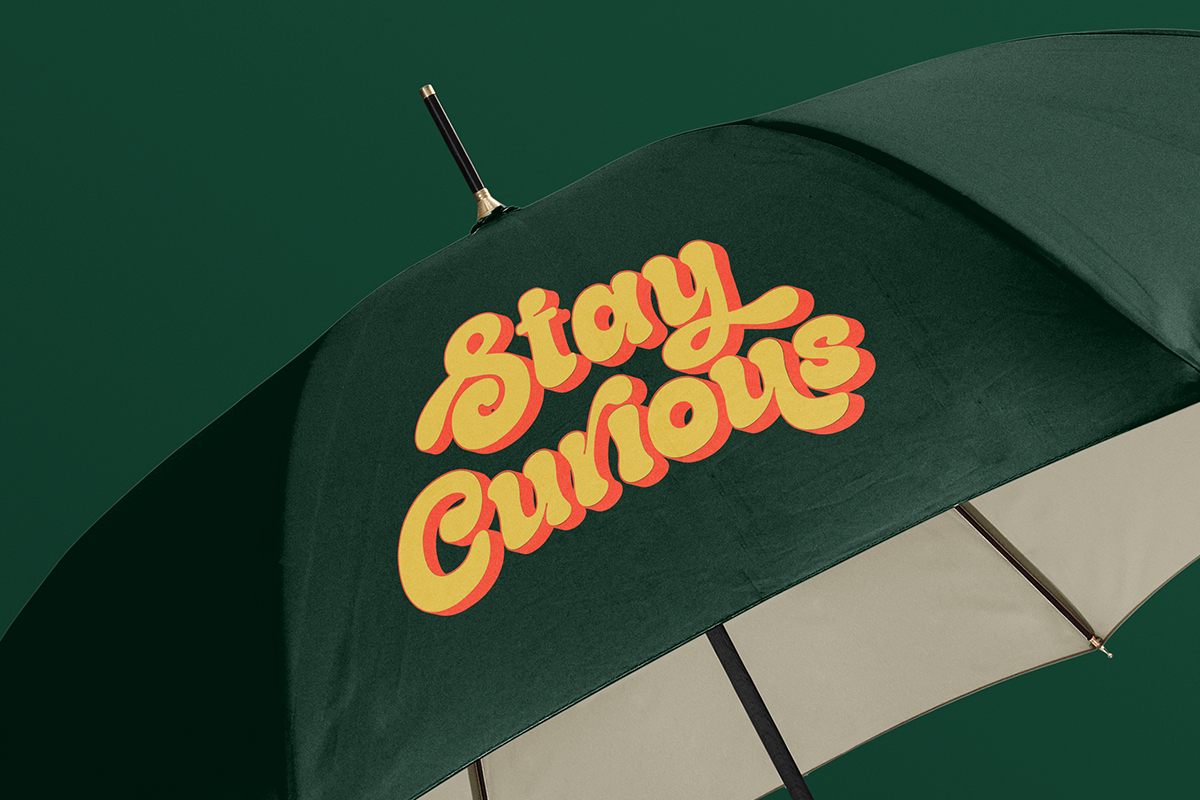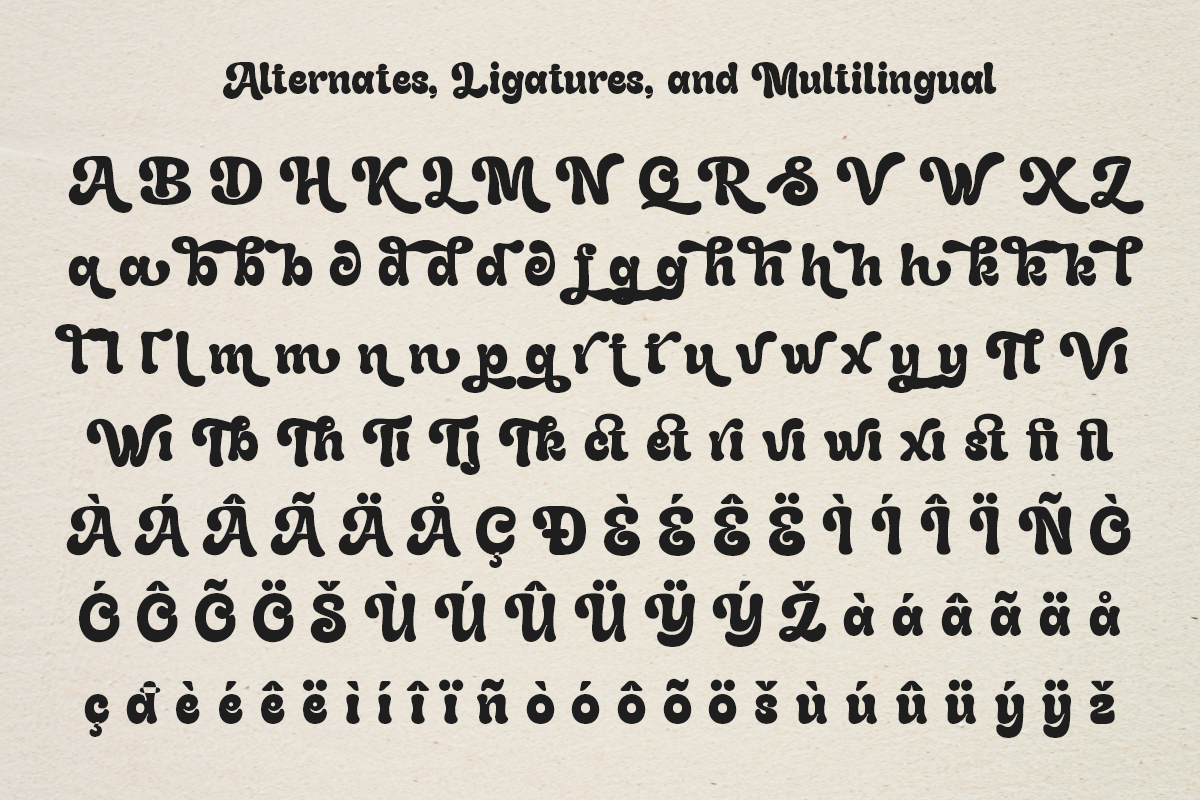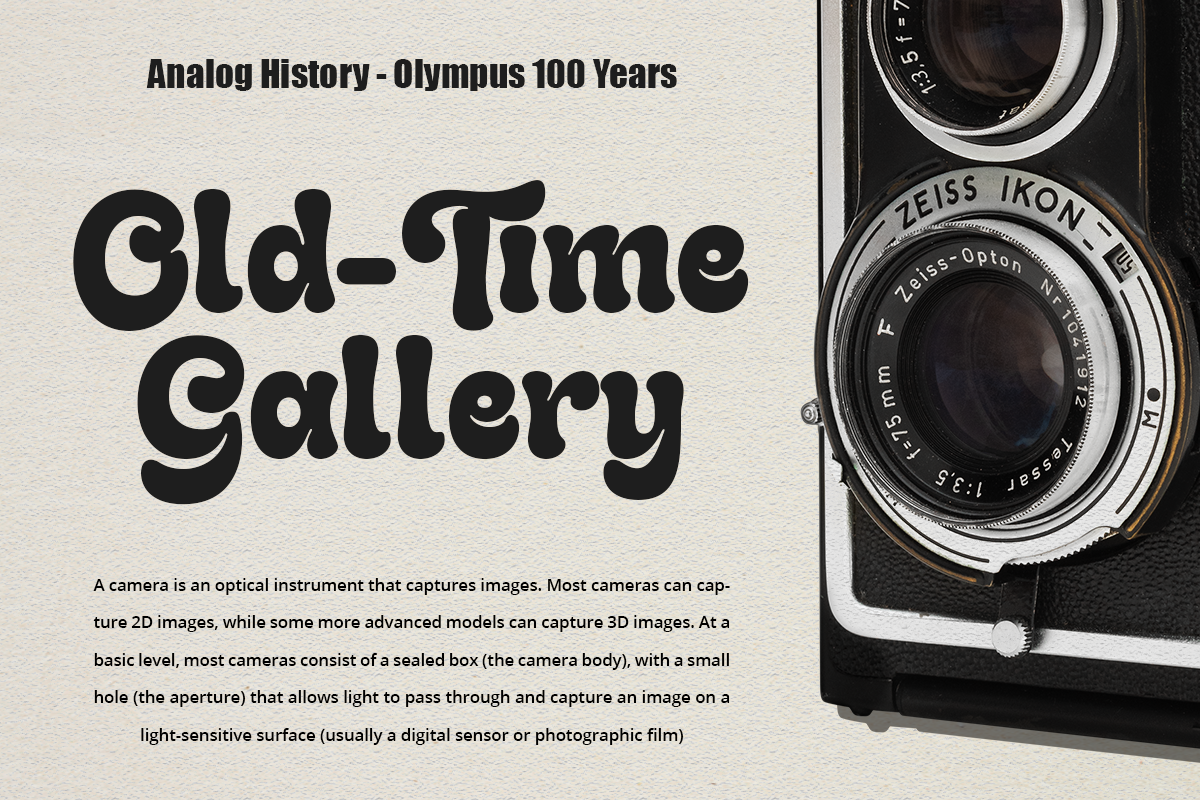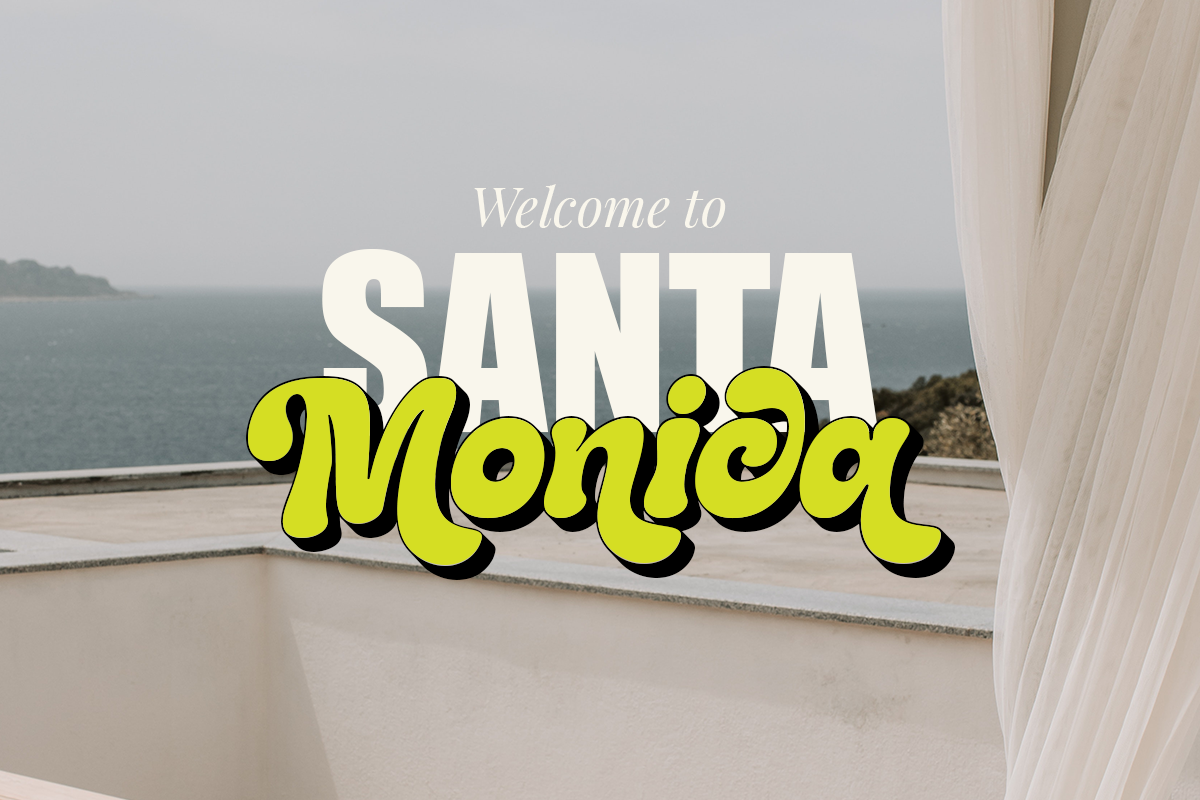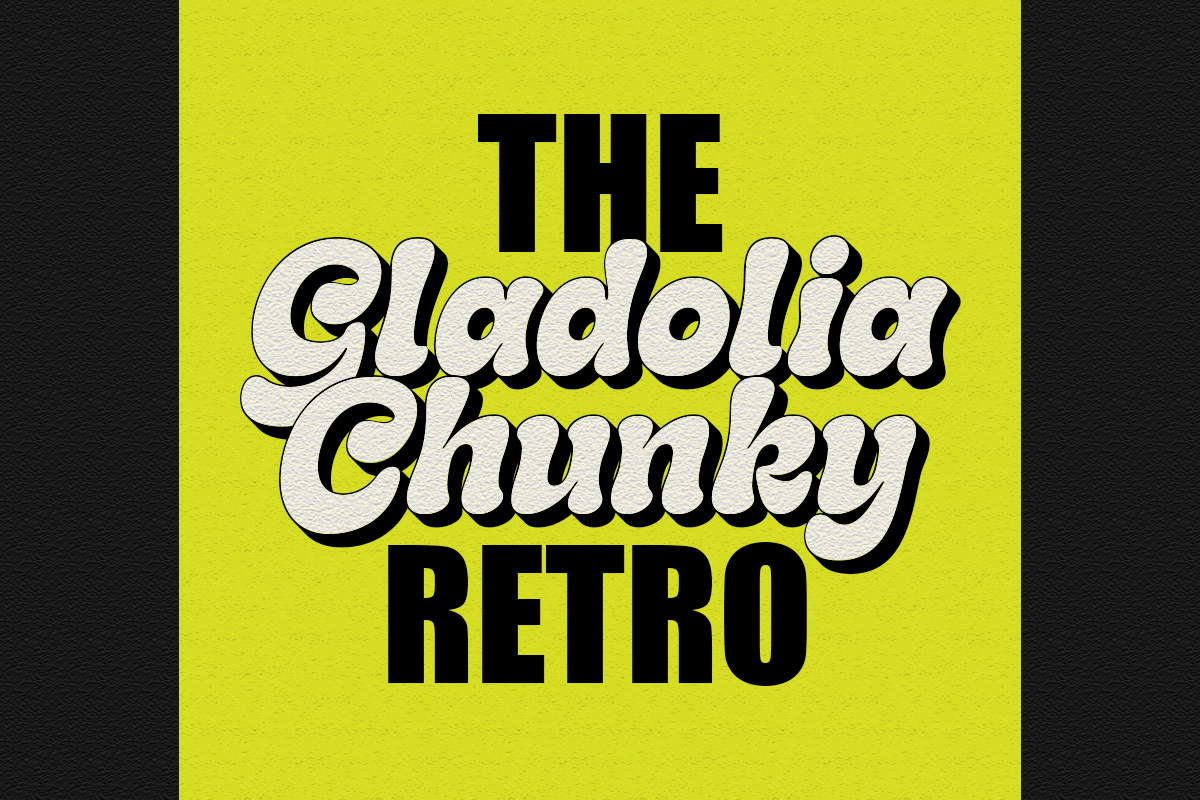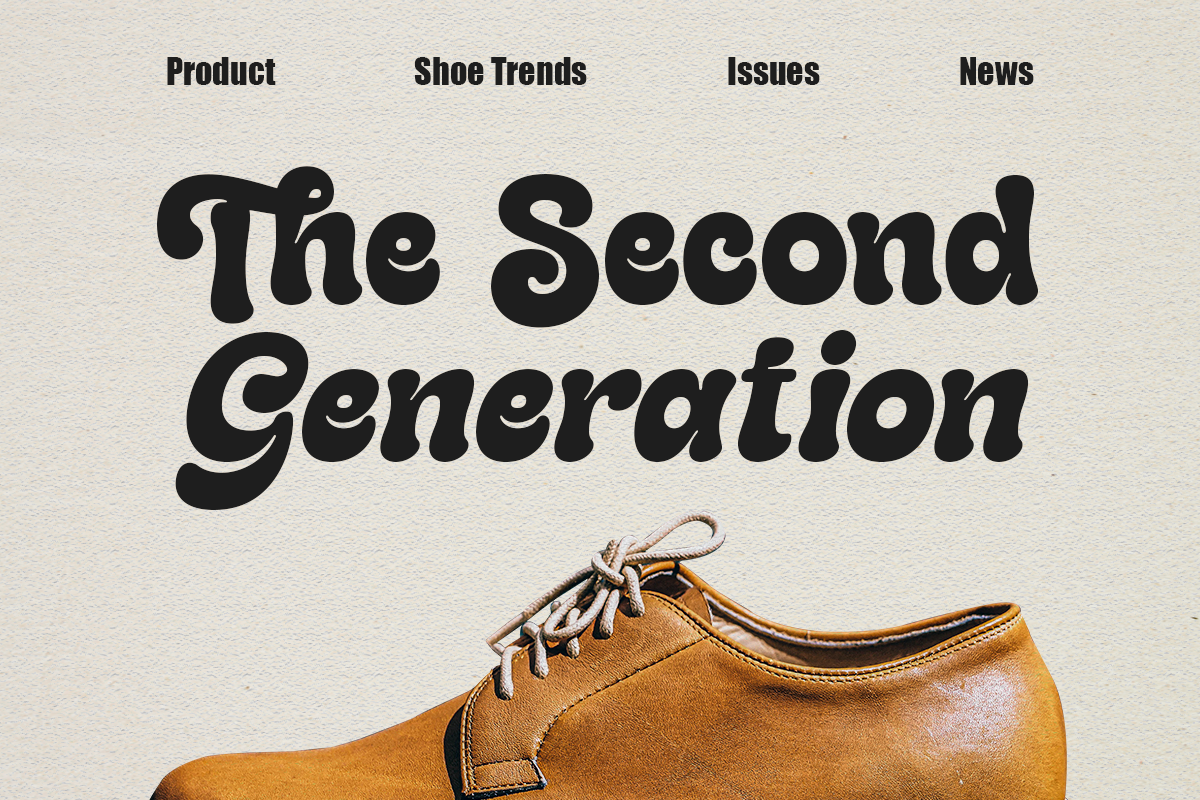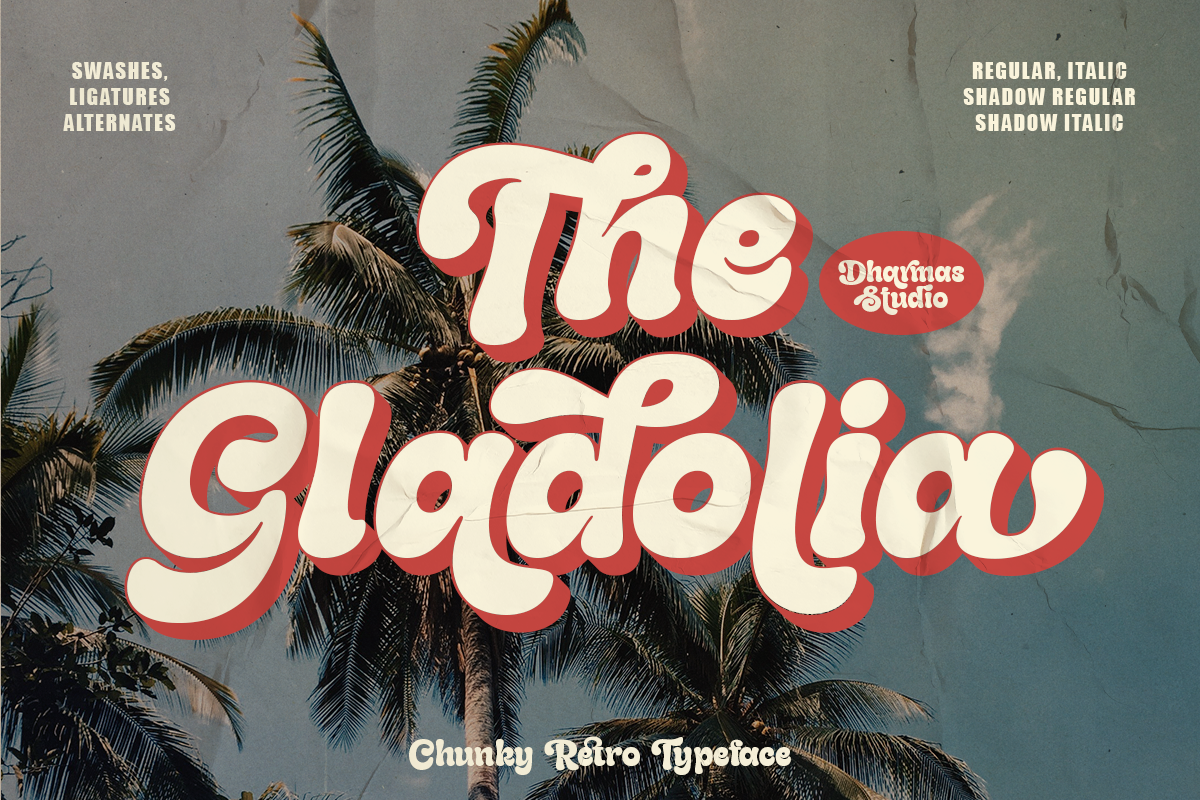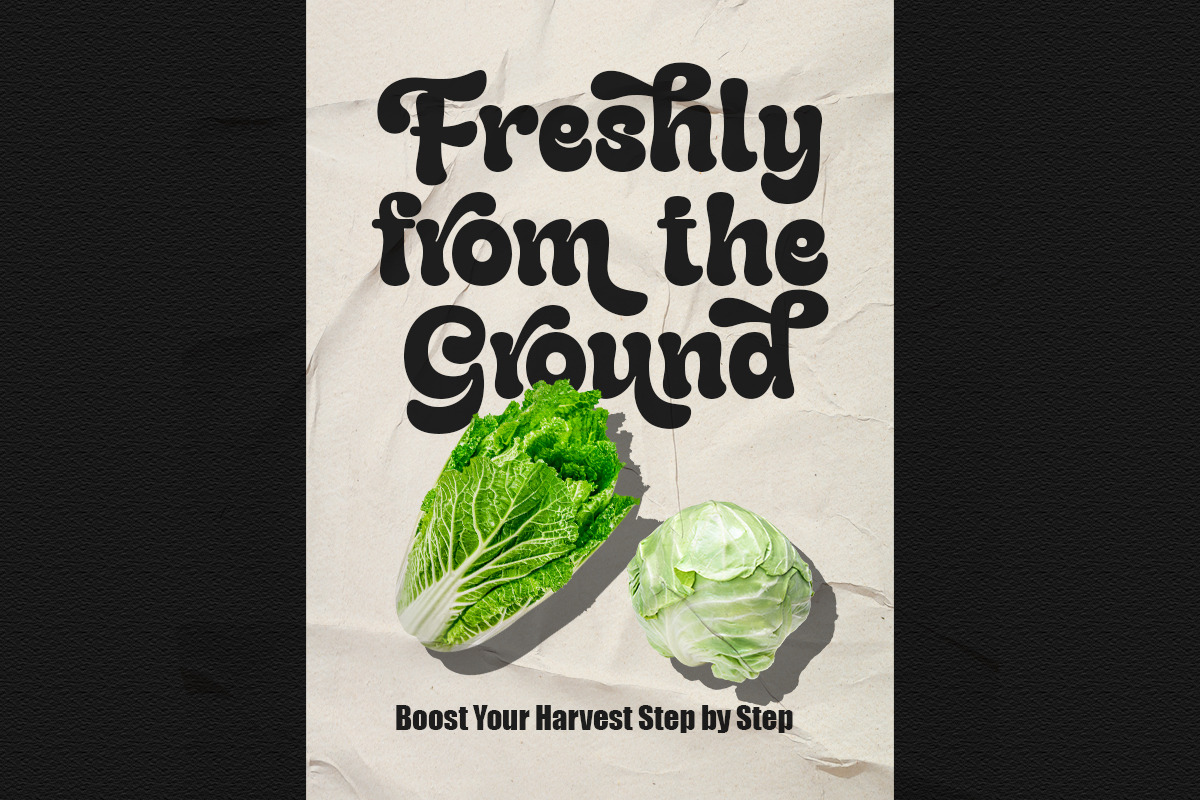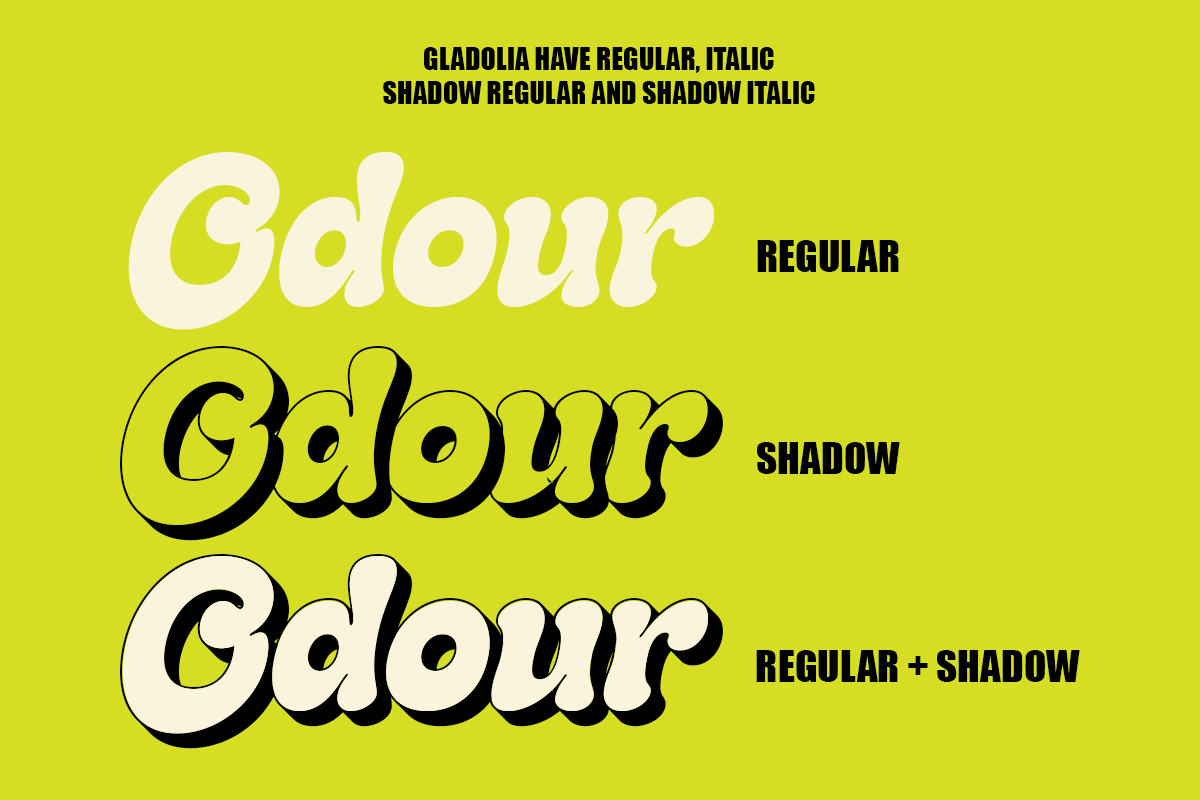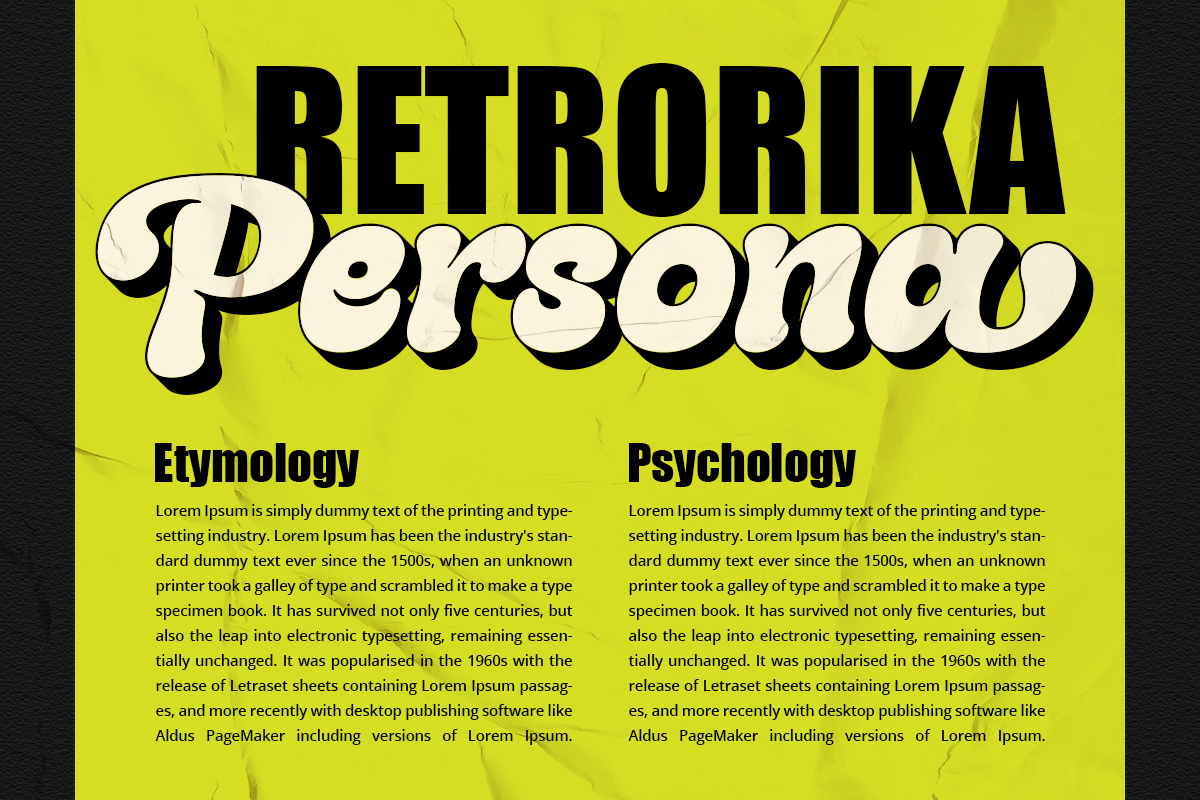
Gladolia - Chunky Groovy Font
Gladolia is a chunky retro display font created for vintage branding, music posters, product packaging, magazine covers, event promotions, logos, and bold social media graphics. Designed for eye-catching headlines, merchandise, advertising, and creative marketing materials, Gladolia brings playful character with a strong retro personality. Inspired by classic 80s typography, the overall look feels bold, fun, and nostalgic.
Gladolia Font Features:
4 Style: Regular, Italic, Shadow Regular, Shadow Italic
65+ Swash, Stylistic Alternates and Ligatures
Letters, numbers, symbols, punctuation, special alternates